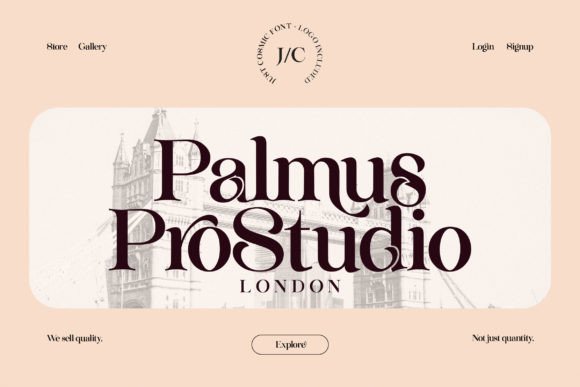
Just Cosmic is a modern vintage serif font will stylistic alternates and beautiful cutout ligatures. This font pack also contains 25 pre-made logos. Just Cosmic is magical in every way. With unique, elegant alternates and ligatures, the font will be your best choice for both text and display type. Just Cosmic is designed to fill the text gaps between serif text lines.
Just Cosmic Font